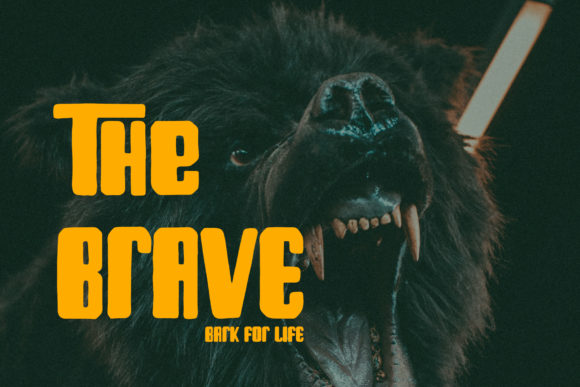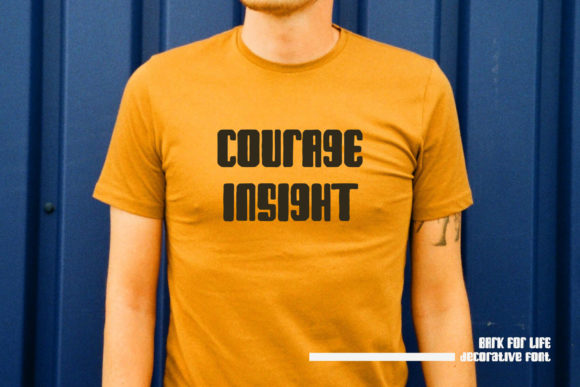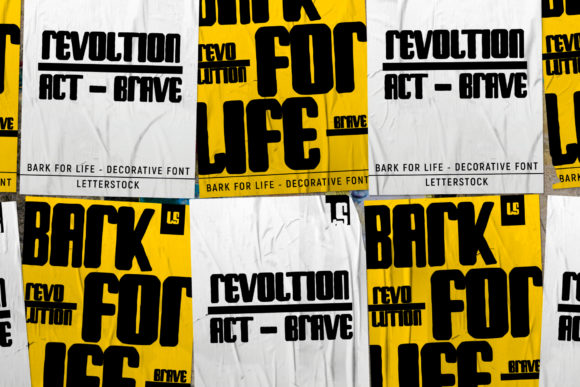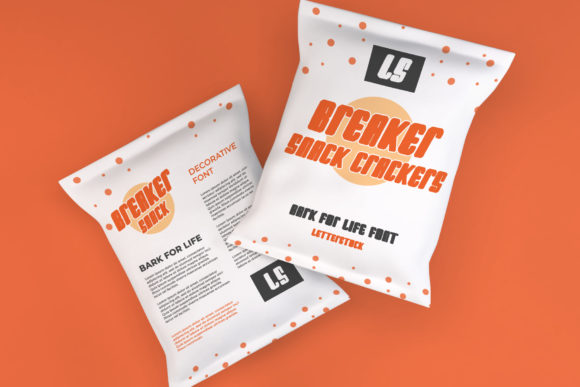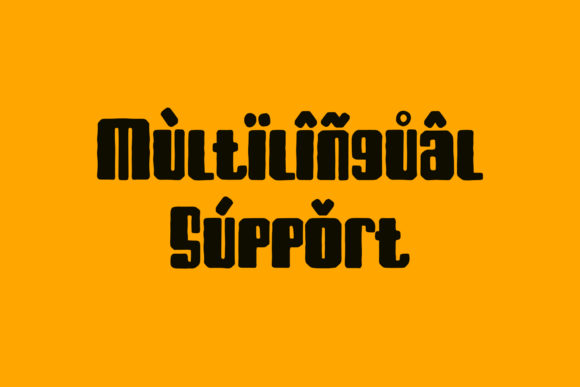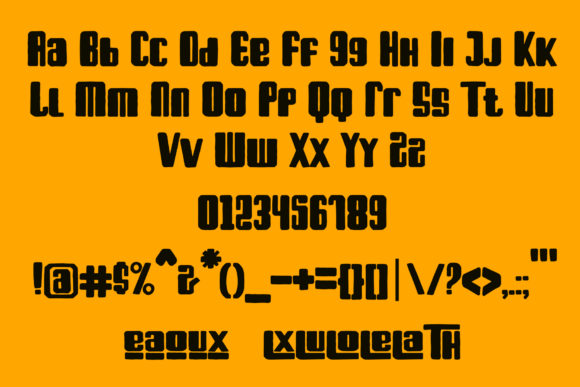
Bark for Life Font: A Perfect Blend of Strength and Playfulness
In the world of typography, fonts play a crucial role in conveying the tone and personality of a brand or design. For designers and crafters looking for a unique and impactful display font, Bark for Life is an excellent choice. This font is a masterful combination of strong and playful elements, making it perfect for a wide range of design projects.
What Makes Bark for Life Font Stand Out?
Bark for Life is a display font that boasts bolded characters and wavy lines, giving it a distinctive and eye-catching appearance. The bolded characters provide a sense of strength and stability, while the wavy lines add a playful and dynamic touch. This font is ideal for designers who want to create a lasting impression with their designs.
One of the standout features of Bark for Life is its PUA (Private Use Area) encoding. This means that designers can easily access the available glyphs and swashes, making it simple to customize and enhance their designs. With PUA encoding, you can unlock a world of creative possibilities and take your designs to the next level.
Bark for Life is a versatile font that is perfect for a wide range of design projects, including:
- Logos and branding: The bolded characters and wavy lines make it an excellent choice for creating unique and memorable logos.
- Signs and posters: The font’s impact and playfulness make it perfect for eye-catching signs and posters.
- Digital and print media: Whether you’re designing for digital or print, Bark for Life is a great choice for creating engaging and effective designs.
- Crafting and DIY projects: The font’s playful and dynamic nature makes it ideal for crafting and DIY projects, such as scrapbooking, card making, and more.
Tips for Using Bark for Life Font
To get the most out of Bark for Life, here are some tips for using the font:
- Experiment with different sizes: The font’s bolded characters and wavy lines make it perfect for large display text, but it can also be used for smaller text sizes.
- Play with colors: The font’s dynamic nature makes it perfect for using bright and bold colors.
- Mix and match: Combine Bark for Life with other fonts to create a unique and eye-catching design.
Bark for Life is a unique and impactful display font that is perfect for designers and crafters looking for a bold and playful typography solution. With its PUA encoding and versatile design, it’s an excellent choice for a wide range of design projects. Whether you’re creating logos, signs, posters, or crafting and DIY projects, Bark for Life is sure to make a lasting impression.